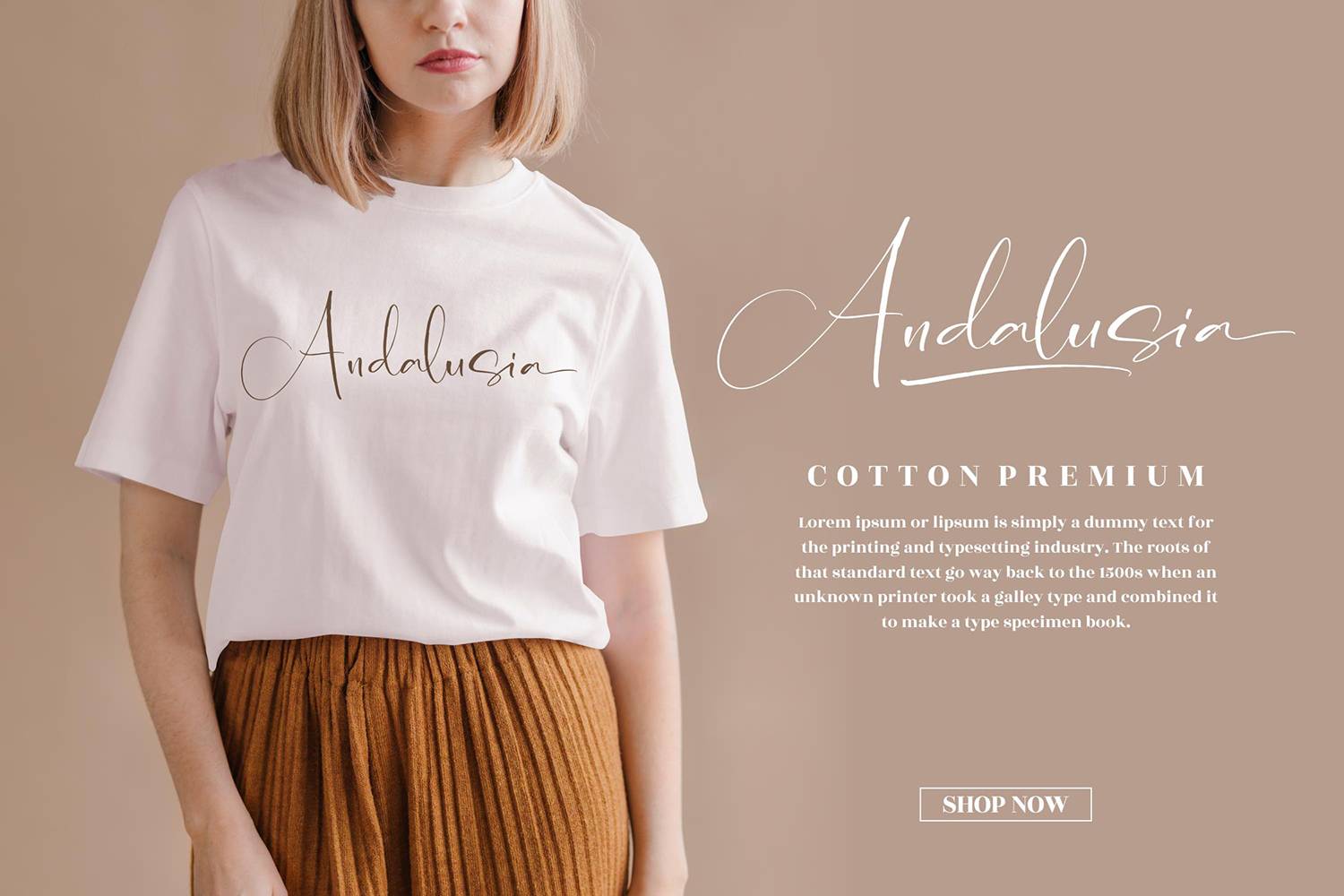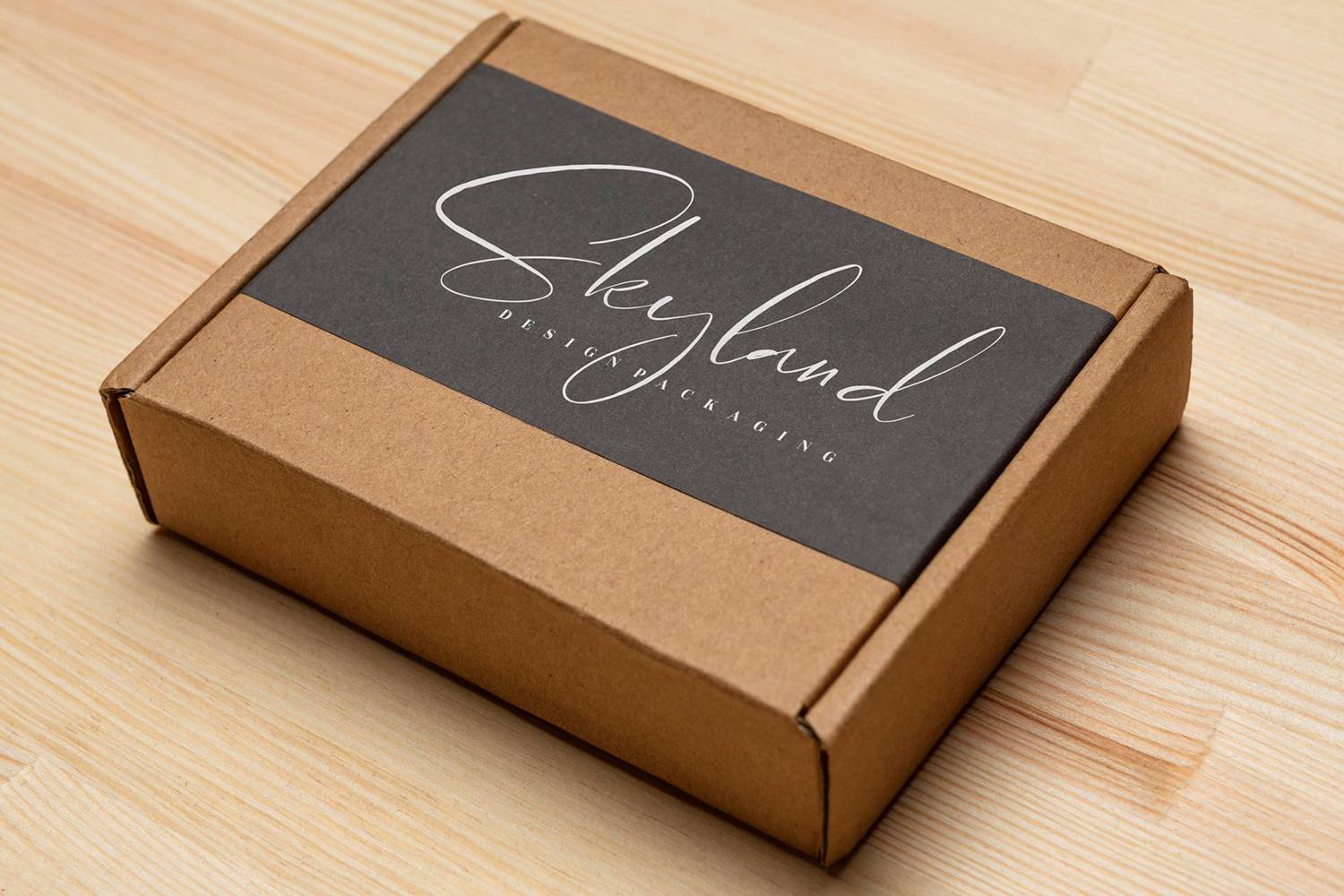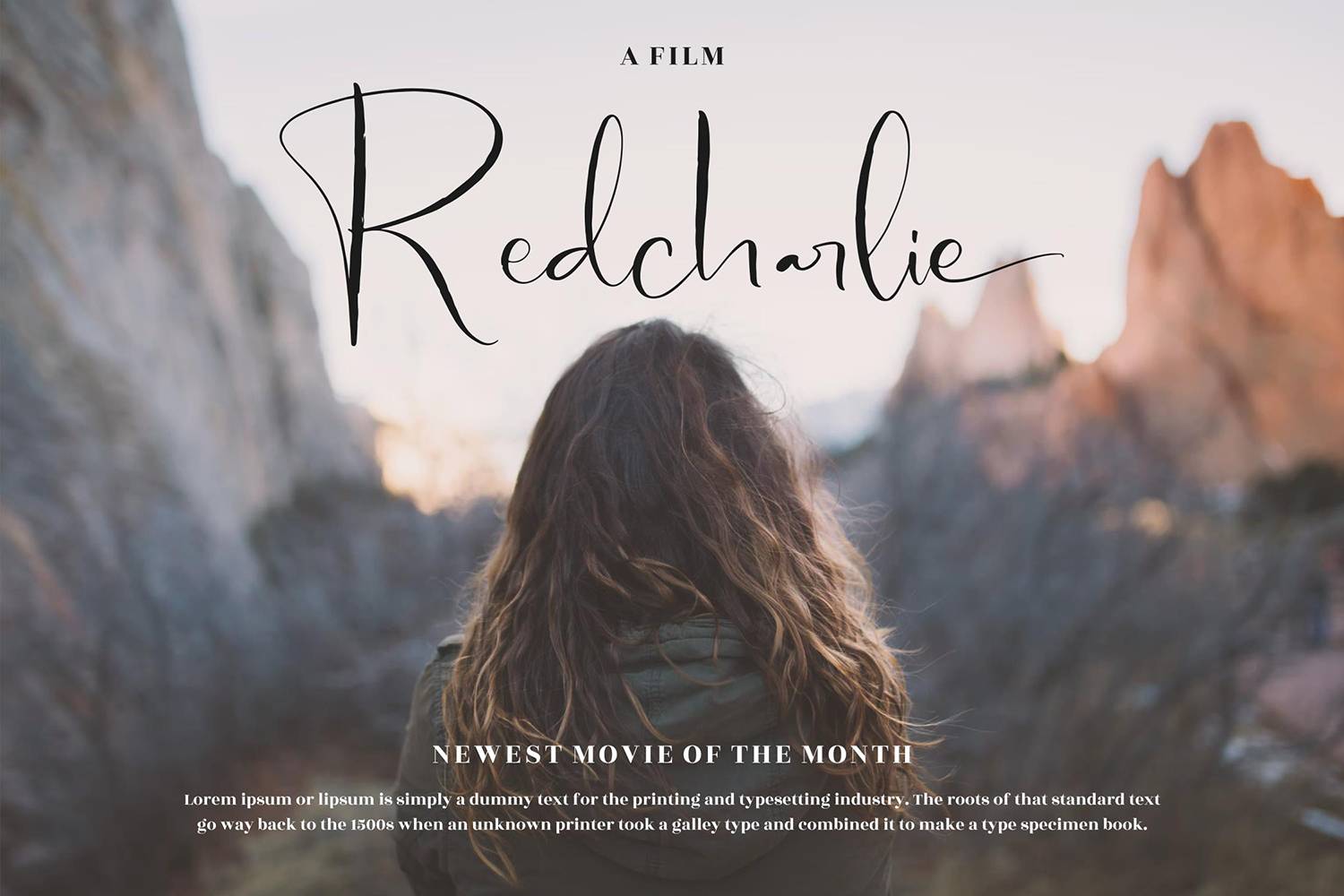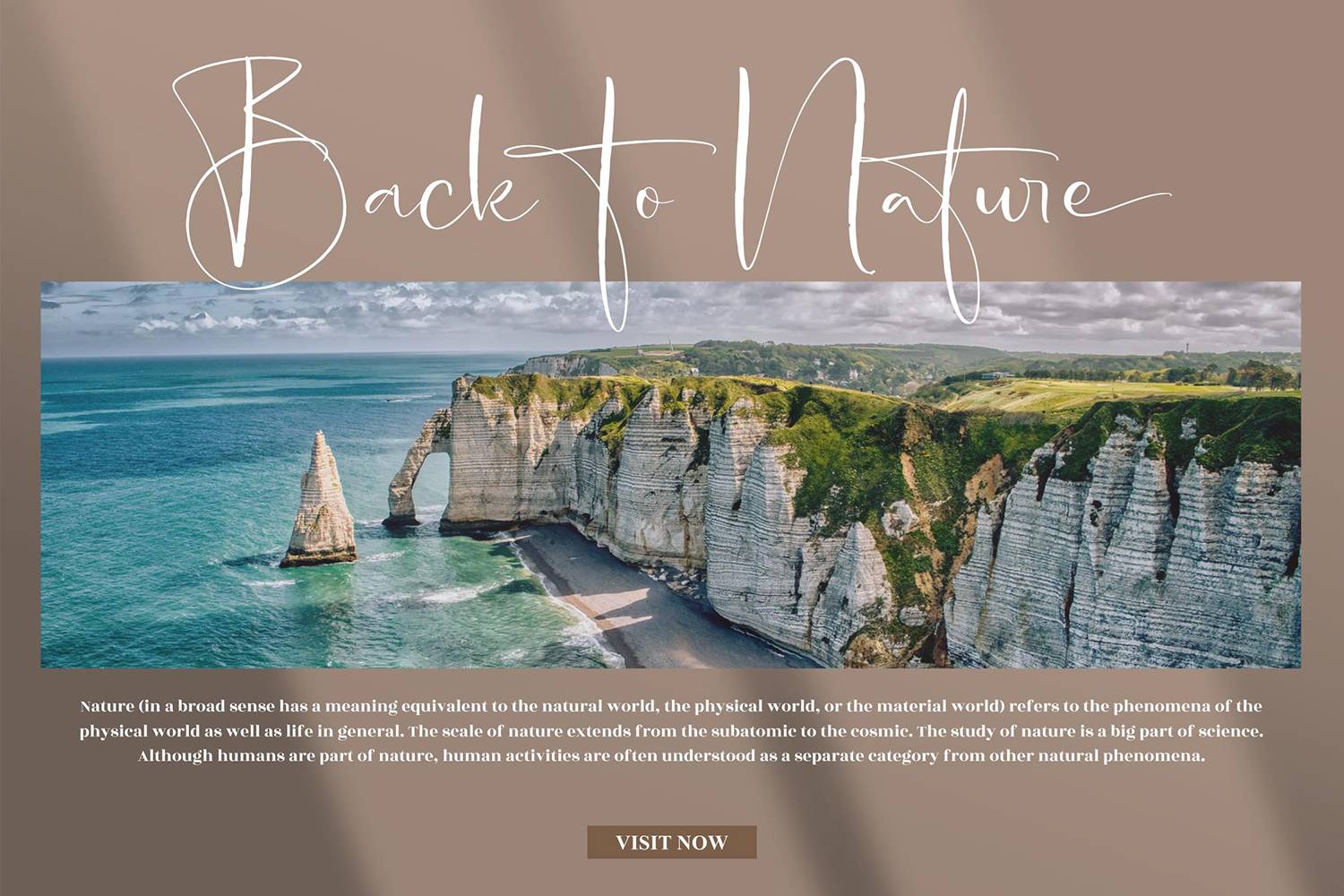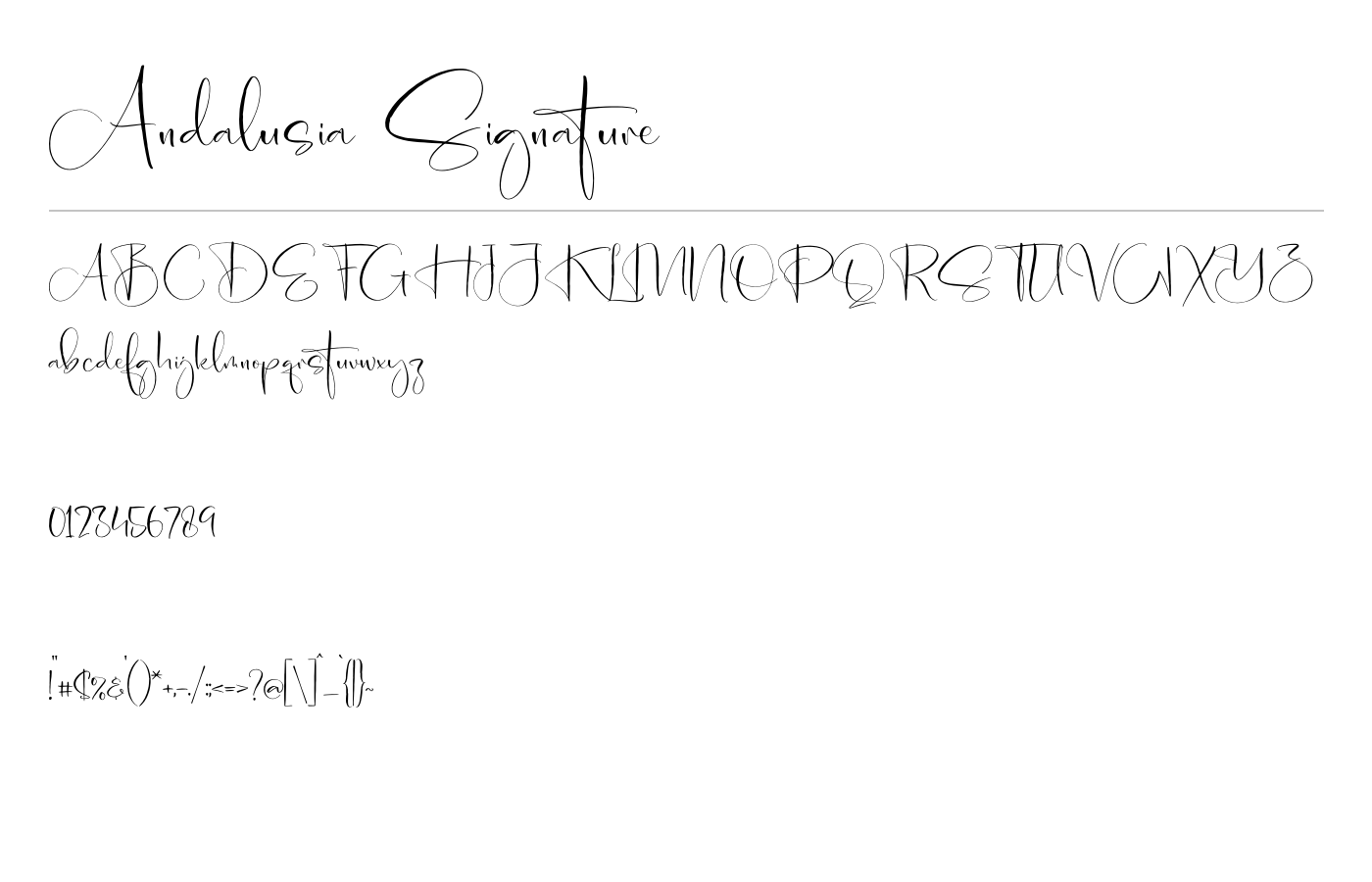
Andalusia Signature is an elegant, flowing script font that mimics natural handwriting with its delicate, thin strokes and graceful swashes. Its tall, airy letterforms and unique, artistic curves give it a sophisticated and personal feel, making it ideal for branding, invitations, and logos that seek a touch of luxury and individuality. This font works beautifully where a refined yet approachable handwritten style is desired.
Andalusia Signature Font
About Andalusia Signature Font